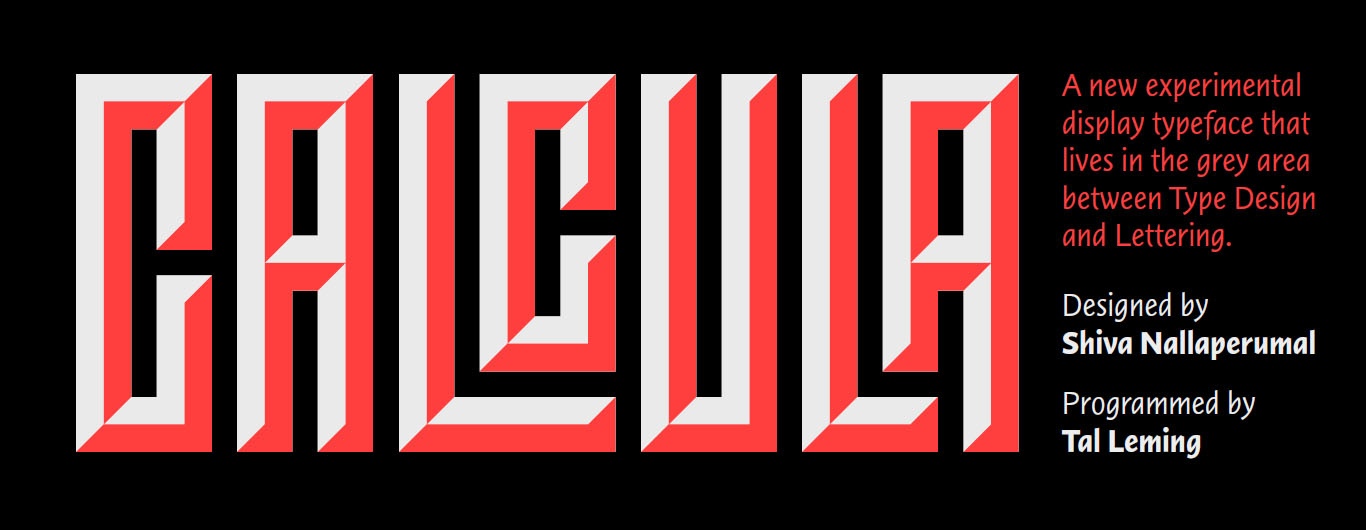
Calcula Font Family Set
Calcula Font Family Set is perfect for financial branding, accounting software, mathematical publications, technical documentation, data visualization, scientific reports, engineering materials, statistical analysis, spreadsheet applications, and professional calculation interfaces. This comprehensive typeface excels in both digital and print applications requiring numerical precision.
Calcula Font Family Set is exciting because it delivers mathematical precision with systematic design that ensures perfect alignment and readability for complex numerical data while maintaining professional appearance across all calculation-intensive applications. Its analytical character creates trustworthy communications that resonate with data-driven audiences.
The Calcula Font Family Set includes regular, bold, light, italic, condensed, extended, monospace, and tabular variants, providing designers with comprehensive typographic options for various design scenarios and numerical communication requirements.
Calcula Font Family Set represents the ultimate solution for data-driven typography, combining mathematical precision with professional aesthetics to create a comprehensive font system optimized for numerical communication and analytical applications. This systematic typeface family addresses the unique challenges of financial reporting, scientific documentation, and technical communication where accuracy and clarity are paramount. The font's analytical character makes it particularly valuable for accounting firms, financial institutions, research organizations, and technology companies that require typography capable of presenting complex data with absolute precision and professional credibility.
The systematic design of Calcula Font Family Set demonstrates meticulous attention to numerical typography requirements, with perfectly aligned figures and consistent spacing that create flawless tabular data presentation and mathematical formula display. This technical excellence ensures superior performance across demanding analytical environments, from financial spreadsheets to scientific publications requiring precise numerical communication. The font's reliable qualities make it especially effective for brands in banking, insurance, analytics, and consulting industries that depend on accurate data presentation and numerical transparency.
Creative professionals working with Calcula Font Family Set Free Download will discover an invaluable resource for data-intensive design challenges. Its systematic styling bridges technical functionality with contemporary aesthetics, making it suitable for traditional financial institutions and modern fintech companies requiring reliable, professional typography for numerical communication. The family's comprehensive range makes it particularly effective for annual reports, research publications, financial dashboards, and analytical platforms that must communicate complex information through clear, trustworthy visual design.
Whether developing financial communications, creating analytical reports, or designing data-driven applications, Calcula Font Family Set provides the typographic precision needed for numerical communications that inspire confidence and convey analytical expertise while maintaining professional standards and achieving optimal data comprehension across all calculation-intensive platforms.